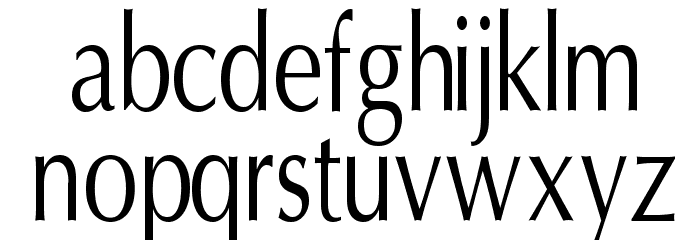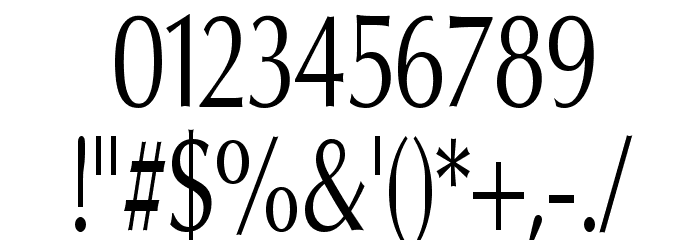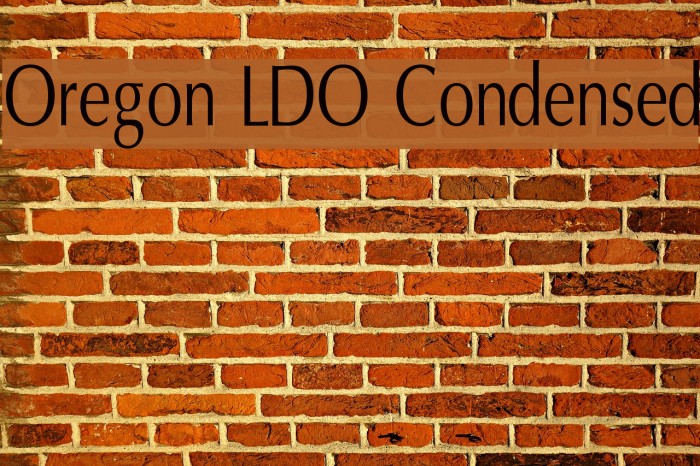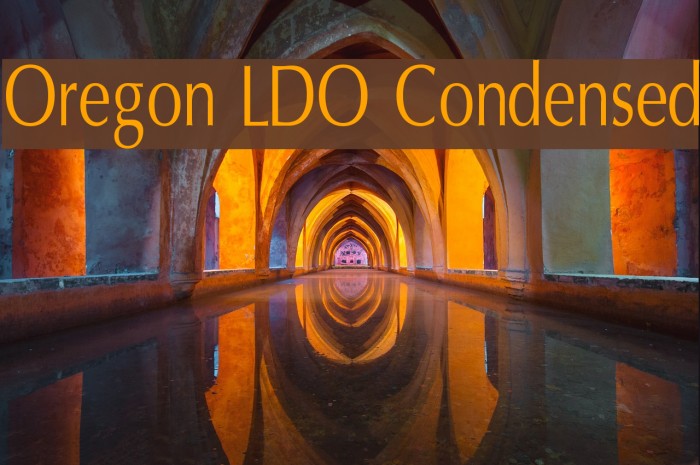
Oregon LDO Condensed Font
This font features a clean and modern sans-serif style with a condensed width, making it ideal for space-saving applications. The characters are uniformly designed with a consistent stroke width, providing a sleek and professional appearance. The uppercase letters are tall and narrow, while the lowercase letters maintain a balanced proportion, enhancing readability. The numerals are clear and distinct, suitable for both display and text purposes. The special characters are well-integrated, maintaining the overall aesthetic of the font. Its simplicity and elegance make it versatile for various design projects.
A modern, condensed sans-serif font with a clean and professional look.
- Proposed Projects: Ideal for branding, editorial design, web design, and advertising where space is limited.
- Use Case: Headlines, Body text, Logos